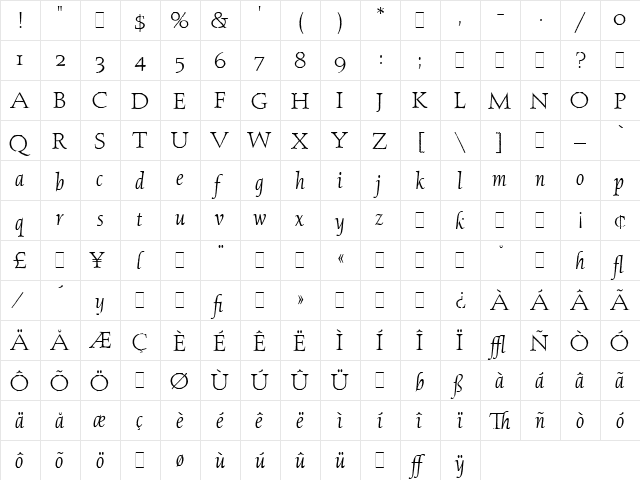
Aquinas LET Regular Font Preview
Aquinas LET Regular
Aquinas LET Regular Font Details
Design Context for Aquinas LET Typeface
Aquinas LET is a composed and adaptable typeface that performs quietly and consistently across a wide range of design contexts.